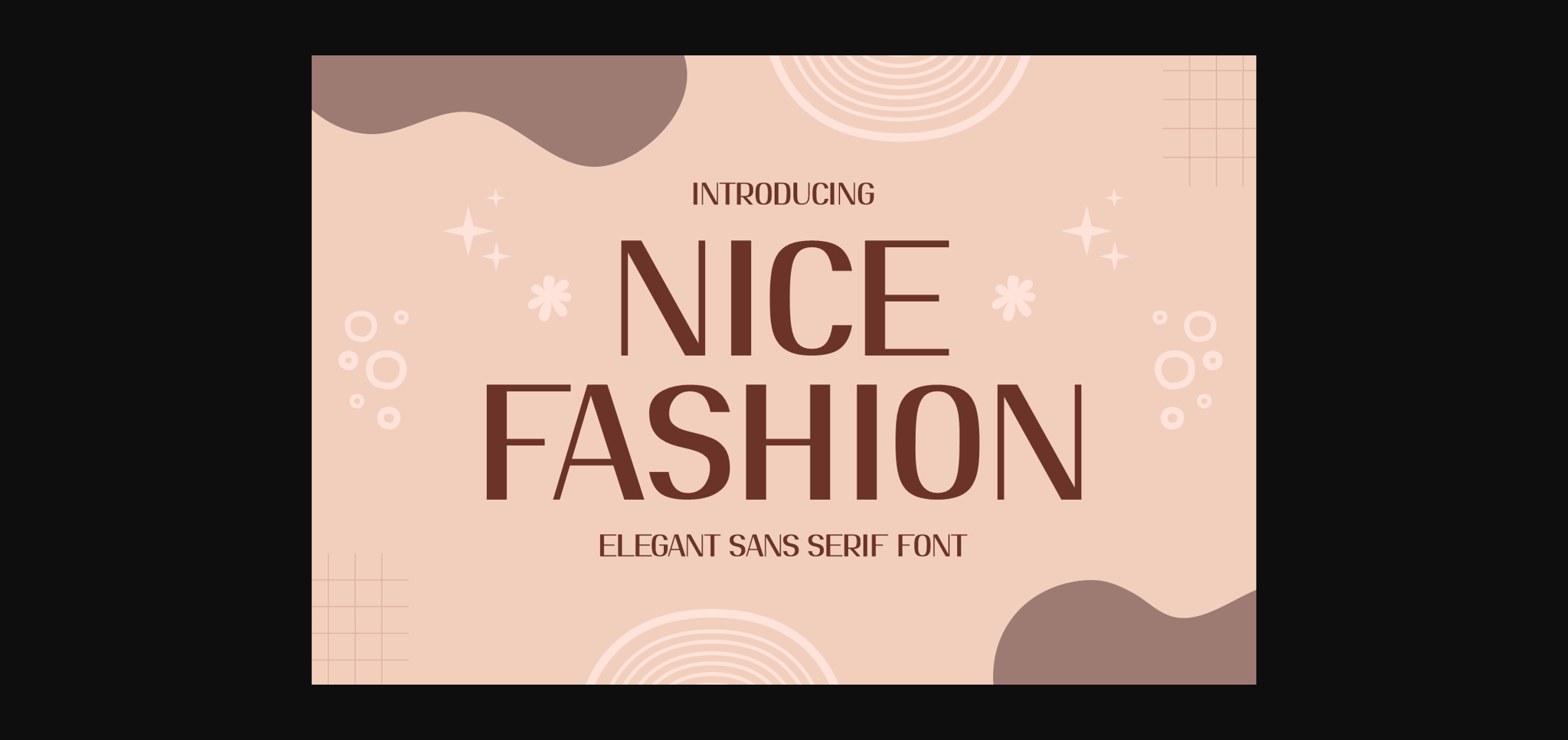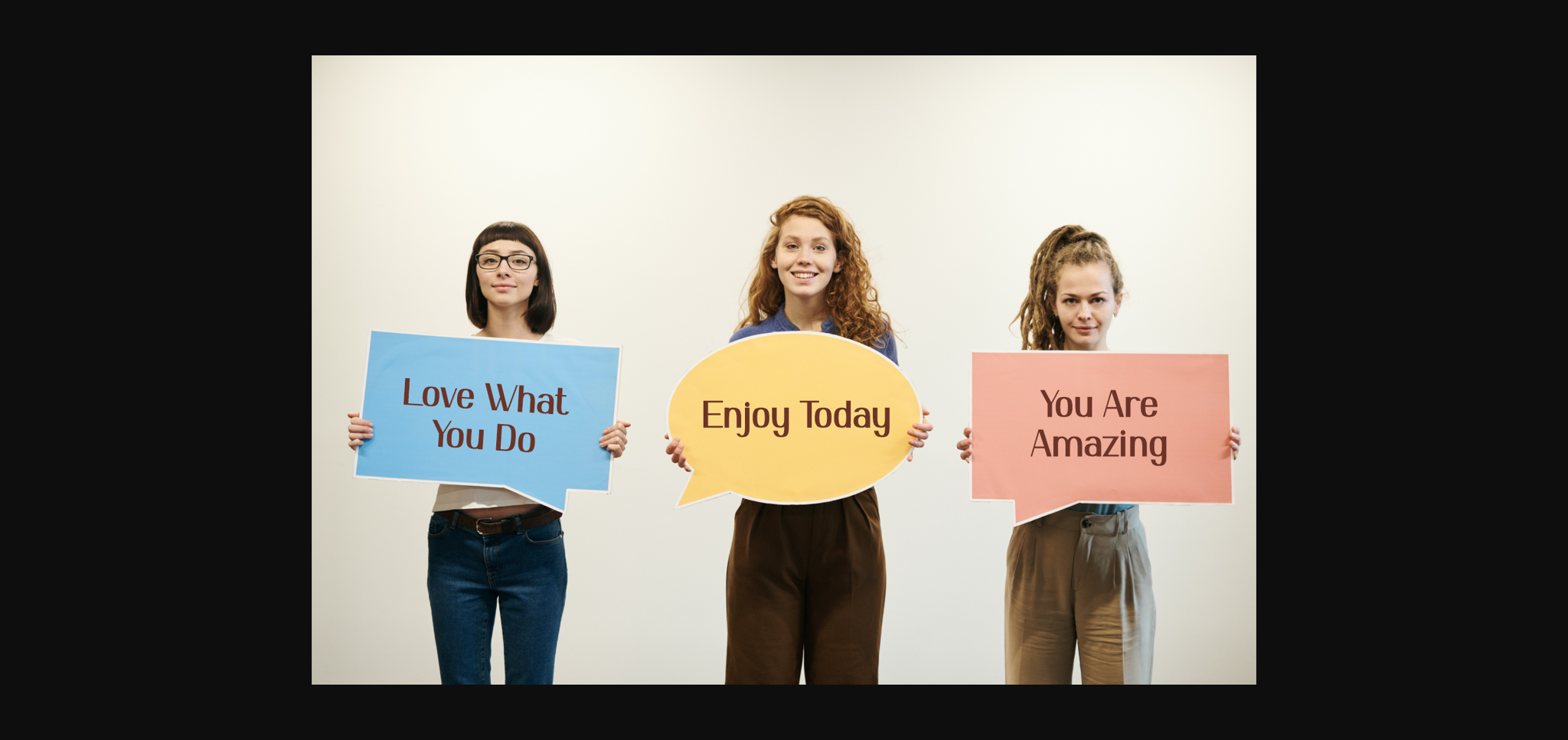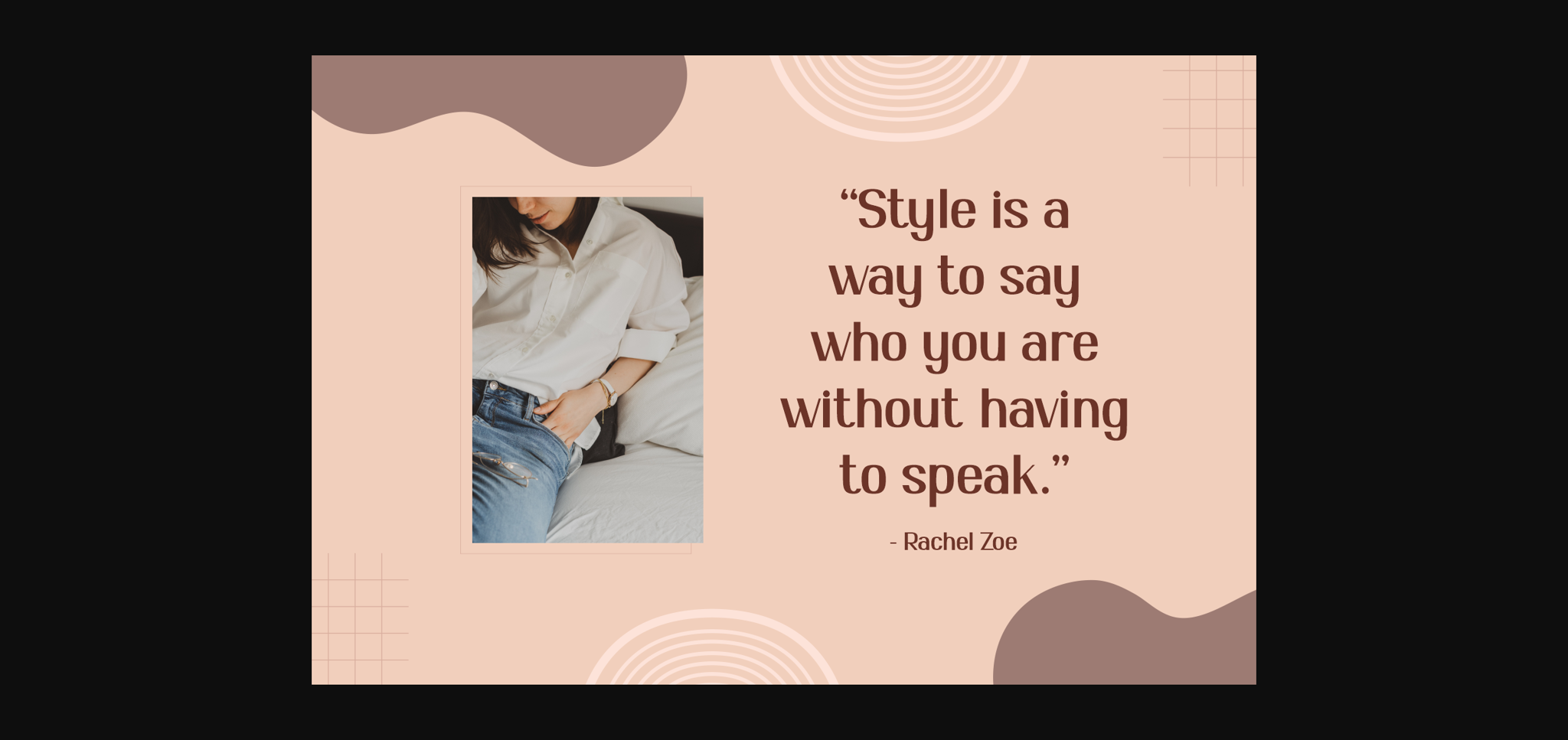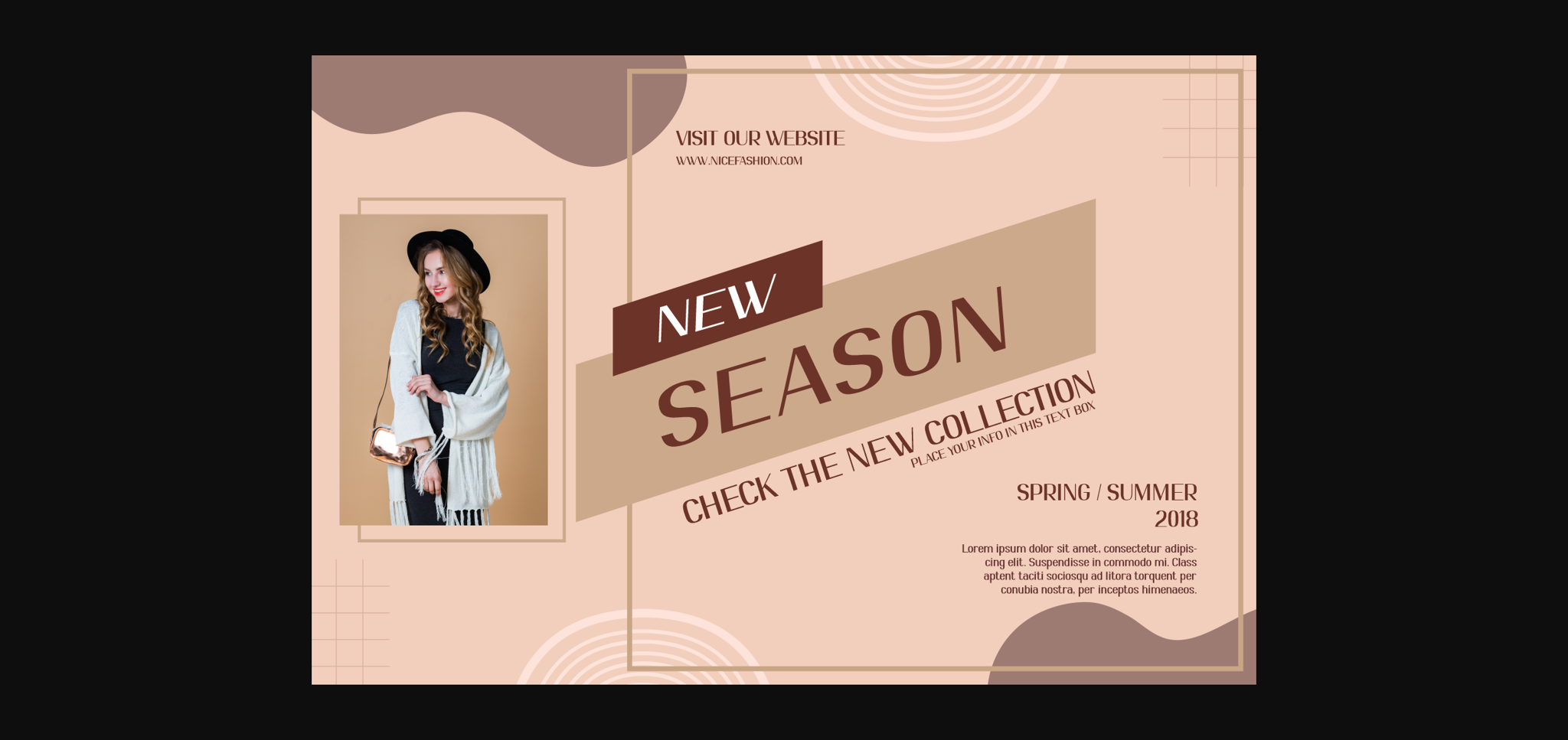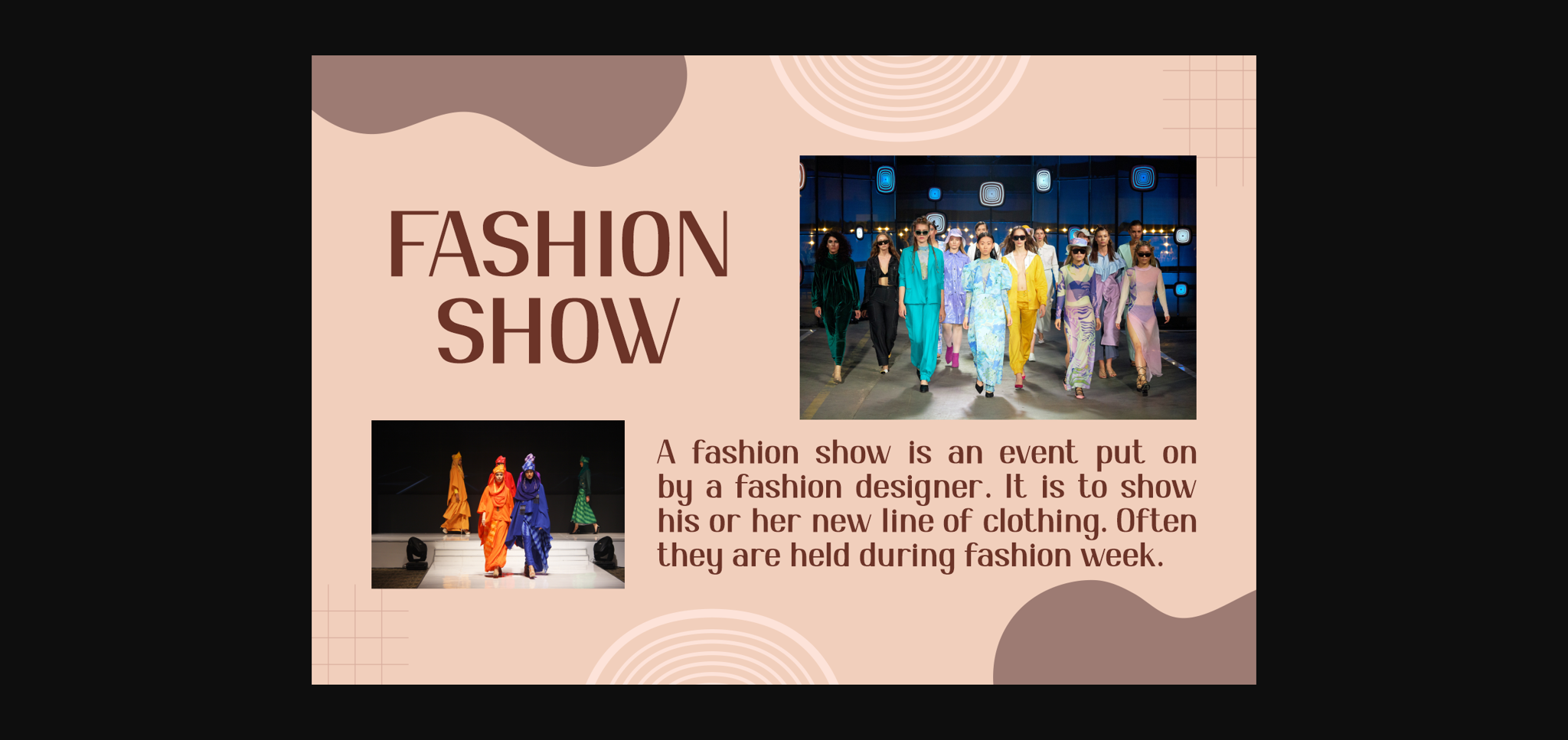
Nice Fashion is a stylish and elegant sans-serif font that effortlessly adds a touch of sophistication to your designs. With clean lines and a modern aesthetic, this font is perfect for creating a sleek and polished look. Whether you’re working on fashion branding, editorial design, or any project that demands a refined touch, Nice Fashion delivers a timeless elegance that complements any setting. Elevate your design with this versatile and chic sans-serif font for a touch of class and contemporary flair.